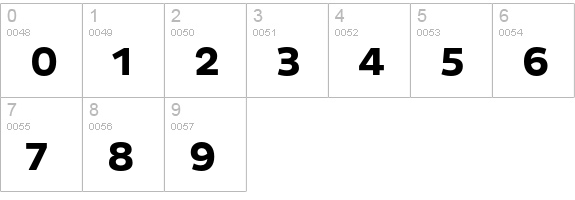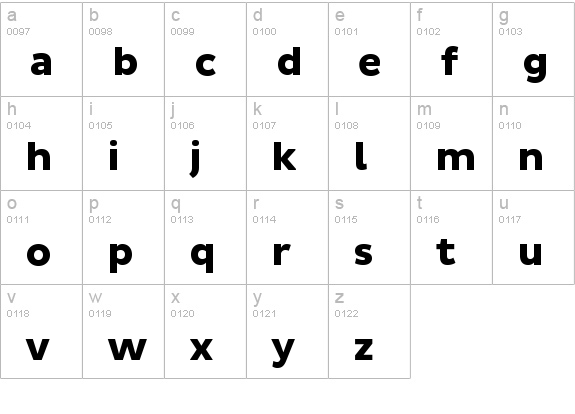
Pluto Sans Bold is a strong, high-contrast variant in the Pluto typeface family \xE2\x80\x94 well suited to headlines, attention-grabbing titles, and strong calls-to-action.
Pluto Sans Bold font is a versatile and modern typeface that exudes confidence and sophistication. With its bold and strong appearance, Pluto Sans Bold commands attention and makes a bold statement in any design project. Its clean lines and distinctive letterforms make it perfect for headlines, branding, and promotional materials. What sets Pluto Sans Bold font apart is that it is available for free download at FontsMarket.com. This means that you can easily access this high-quality font without any cost, making it a valuable addition to your font collection. Whether you're a professional designer or a hobbyist, Pluto Sans Bold font offers you the opportunity to elevate your designs with its sleek and contemporary style. Add a touch of modernity and impact to your projects with Pluto Sans Bold font, and discover the endless possibilities that this free font has to offer. Download it today at FontsMarket.com and start creating stunning designs that stand out from the crowd.